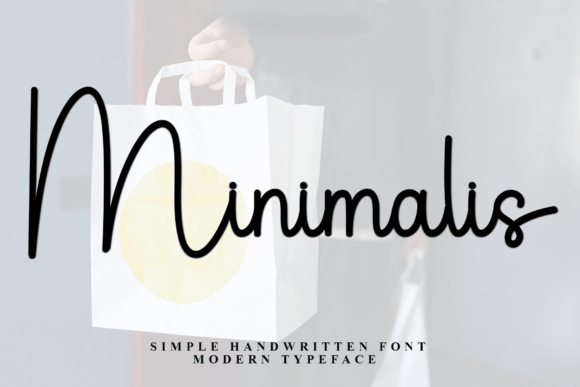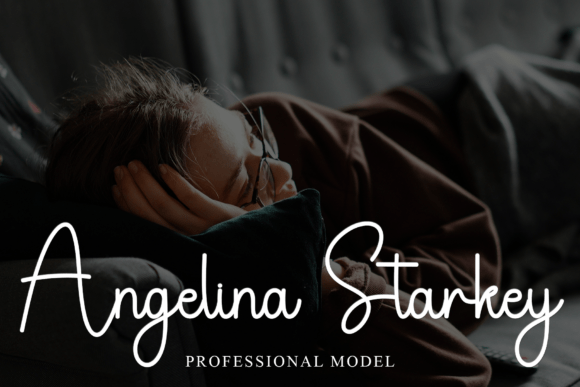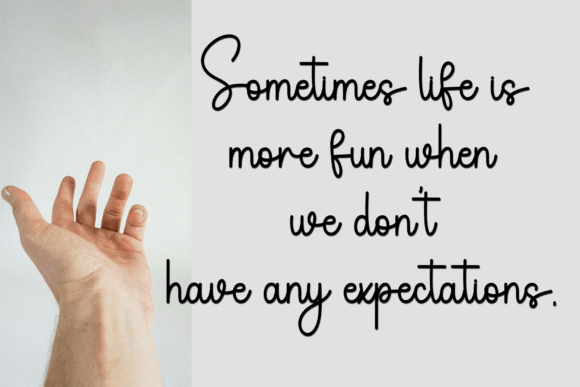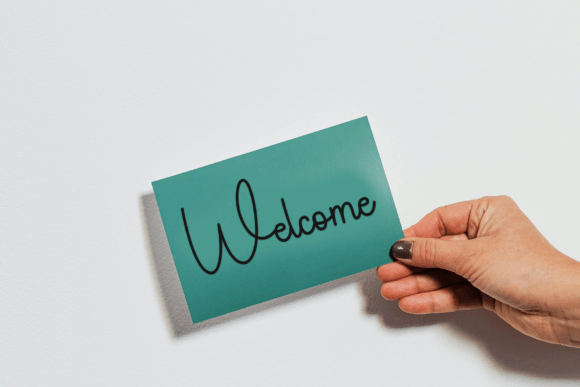
Minimalis Font: Chic Handwritten Script for Modern Branding
About the Minimalis Font
Add a touch of class to your work with the Minimalis Font, a truly exceptional typeface. Minimalis is a sleek, simple handwritten font that exudes elegance and modern charm. With its clean lines and casual flow, it’s perfect for branding, logos, social media posts, packaging, and minimalist stationery. This font brings a personal yet professional touch to every design.
Minimalis excels in applications requiring a touch of understated elegance; logos, short headlines, and invitations are ideal. Its clean strokes also make it suitable for packaging design, particularly for products emphasizing simplicity and sophistication. However, due to its handwritten nature, it’s less effective for lengthy body text or UI elements where readability is paramount.
Pairing Minimalis with a geometric sans-serif font like Montserrat or a clean serif like Playfair Display creates a balanced and sophisticated look. For a more playful feel, consider pairing it with a rounded sans-serif such as Lato. The contrast enhances legibility and adds visual interest.
Minimalis projects a modern, elegant, and approachable personality. It’s best suited for brands conveying sophistication, minimalism, and a touch of personal warmth, such as boutiques, lifestyle brands, or high-end stationery companies.
Minimalis Font Usage Examples
Minimalis Font Example